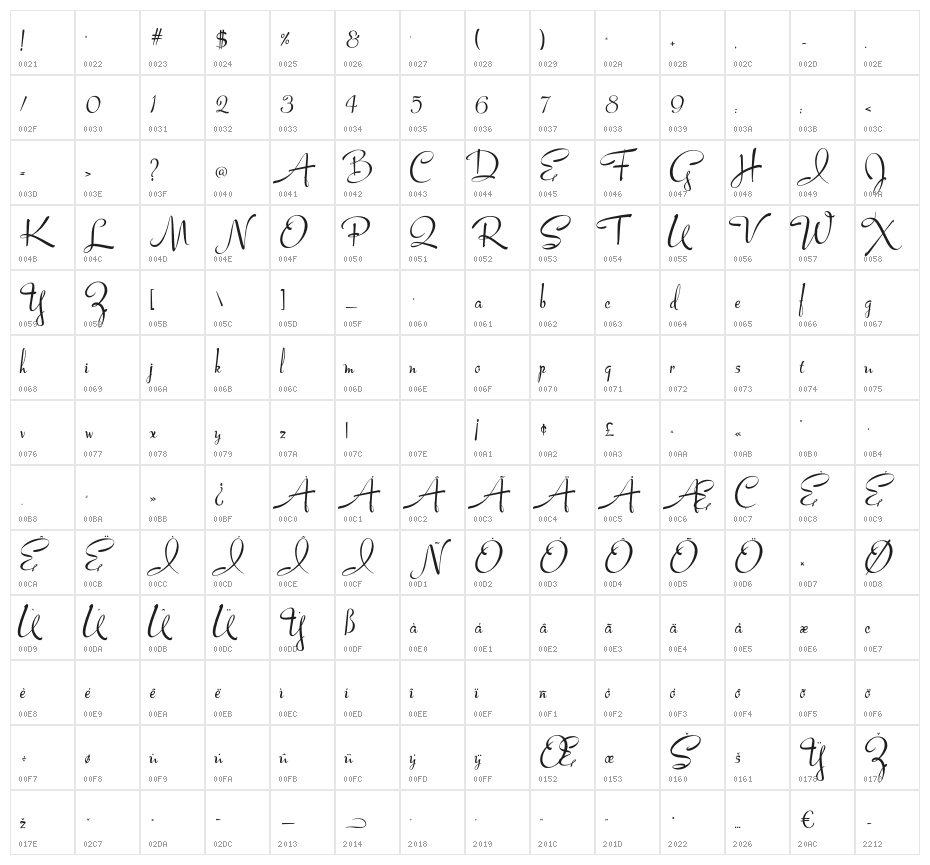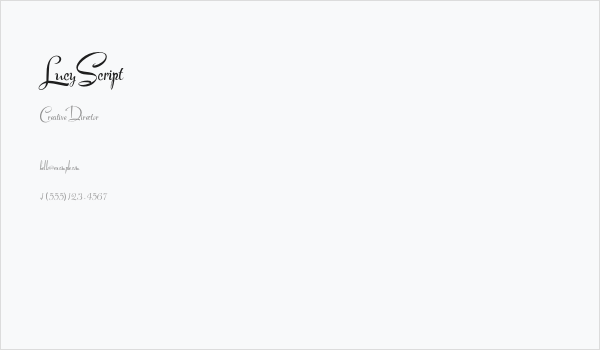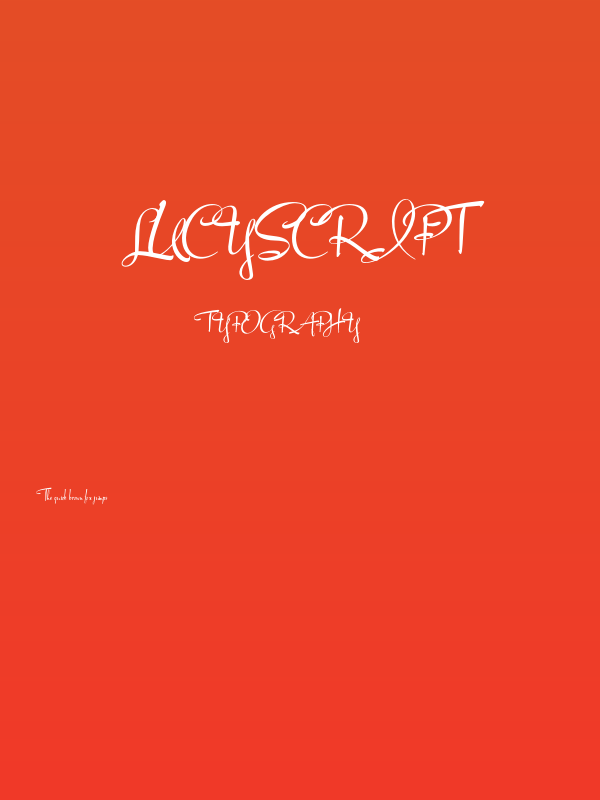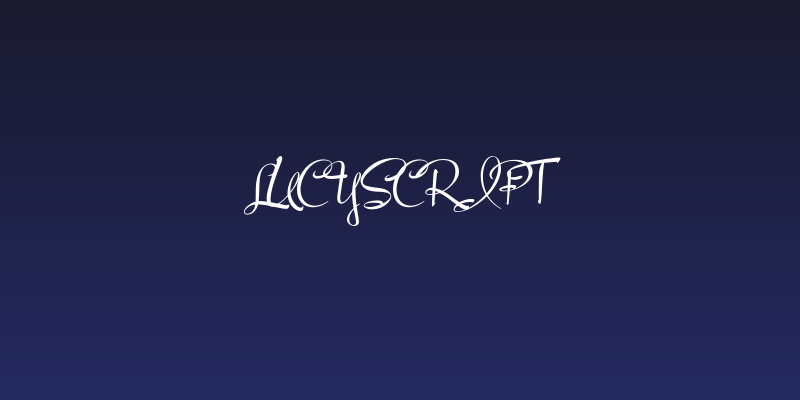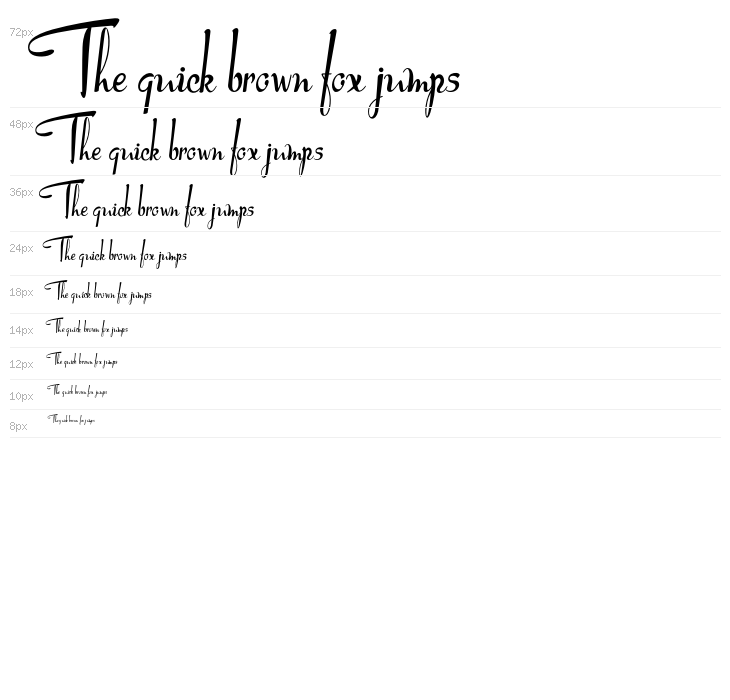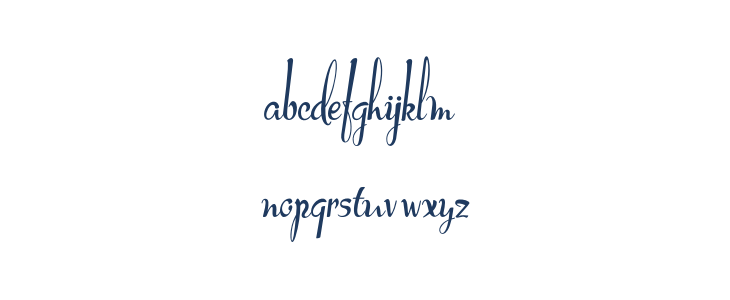
LucyScript Font
LucyScript Description
This elegant script font features a flowing, cursive style with delicate, elongated strokes and graceful curves. The uppercase letters are ornate, with flourishes that add a touch of sophistication, while the lowercase letters maintain a consistent fluidity, enhancing readability. The numerals are stylishly integrated, matching the overall aesthetic of the font. Special characters are designed with the same attention to detail, ensuring a cohesive look across all elements. This font exudes a sense of elegance and refinement, making it suitable for formal and decorative applications.
| Use Case | Headlines, Invitations, Decorative text |
| Proposed Projects | Ideal for wedding invitations, elegant branding, greeting cards, and decorative signage. |